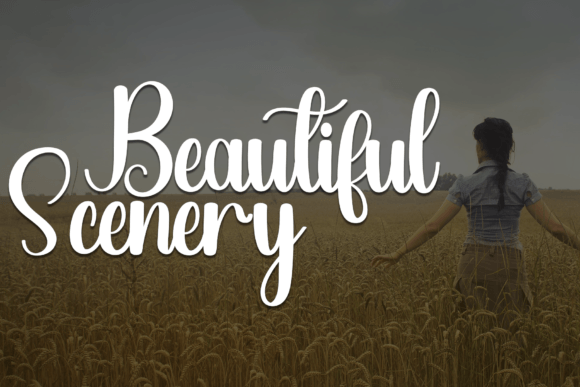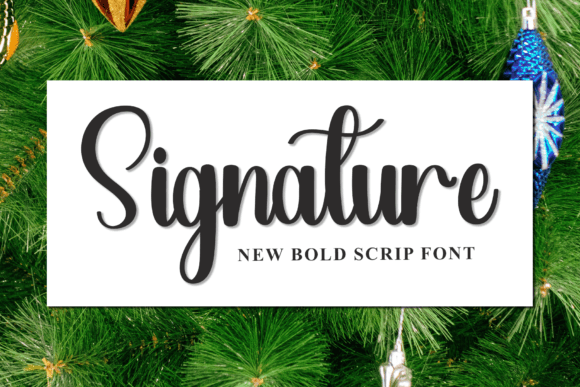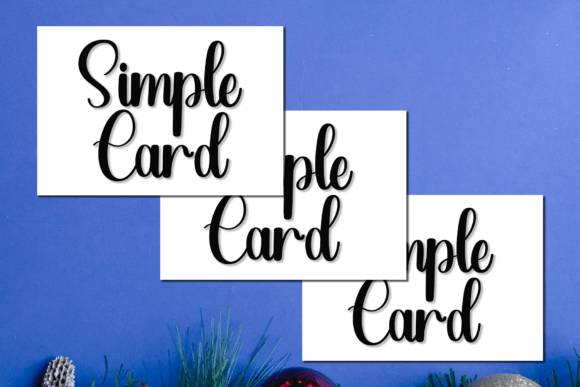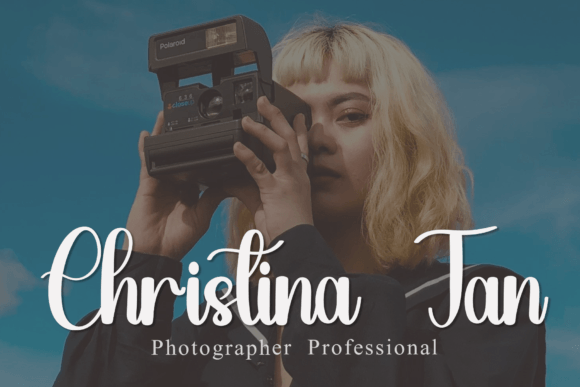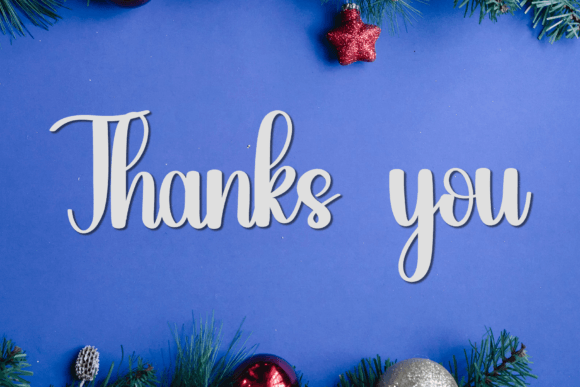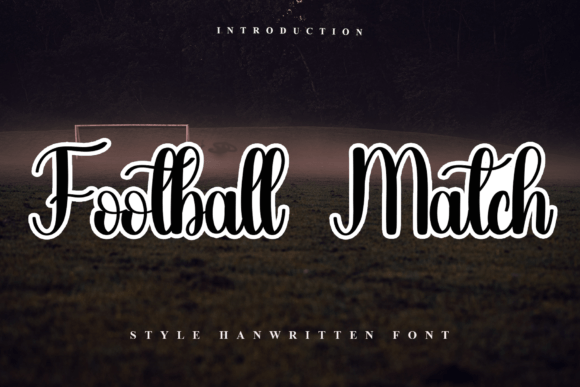
Introducing Football Match Font: The Perfect Choice for Designers and Crafters
Are you looking for a font that can add a touch of excitement and energy to your designs? Look no further than Football Match Font, a beautiful and attractive font that is sure to make your work stand out. With its soft touch, unique and distinctive strokes, and good meaning and meaning for the future, this font is perfect for designers and crafters who want to create stunning designs that capture the attention of their audience.
What Makes Football Match Font So Special?
Football Match Font is a natural font style that is suitable for various products and design needs. It has many characters that can be used for design needs, handicrafts, and many more interesting designs. The font is designed with a soft touch, which gives it a unique and distinctive look that sets it apart from other fonts. The strokes are carefully crafted to create a sense of movement and energy, making it perfect for designs that require a dynamic and lively feel.
Key Features of Football Match Font
• Unique and Distinctive Strokes: Football Match Font has a unique and distinctive stroke that sets it apart from other fonts. The strokes are carefully crafted to create a sense of movement and energy.
• Soft Touch: The font has a soft touch that gives it a natural and friendly feel. This makes it perfect for designs that require a approachable and inviting look.
• Good Meaning and Meaning for the Future: Football Match Font has a good meaning and meaning for the future, making it perfect for designs that require a sense of optimism and positivity.
• Many Characters: The font has many characters that can be used for design needs, handicrafts, and many more interesting designs.
How to Use Football Match Font in Your Designs
Football Match Font is a versatile font that can be used in a variety of designs, including:
• Logo Design: Use Football Match Font to create stunning logos that capture the attention of your audience.
• Poster Design: Create eye-catching posters that showcase your message in a clear and concise manner.
• Brochure Design: Use Football Match Font to create brochures that are both informative and visually appealing.
• Social Media Graphics: Create stunning social media graphics that showcase your brand’s personality and style.
Why Designers and Crafters Love Football Match Font
Designers and crafters love Football Match Font because of its unique and distinctive look. The font is perfect for creating designs that require a sense of energy and movement. The soft touch and natural feel of the font make it perfect for designs that require a friendly and approachable look.
In conclusion, Football Match Font is a beautiful and attractive font that is perfect for designers and crafters who want to create stunning designs that capture the attention of their audience. With its unique and distinctive strokes, soft touch, and good meaning and meaning for the future, this font is sure to make your work stand out. Whether you’re creating logos, posters, brochures, or social media graphics, Football Match Font is the perfect choice.